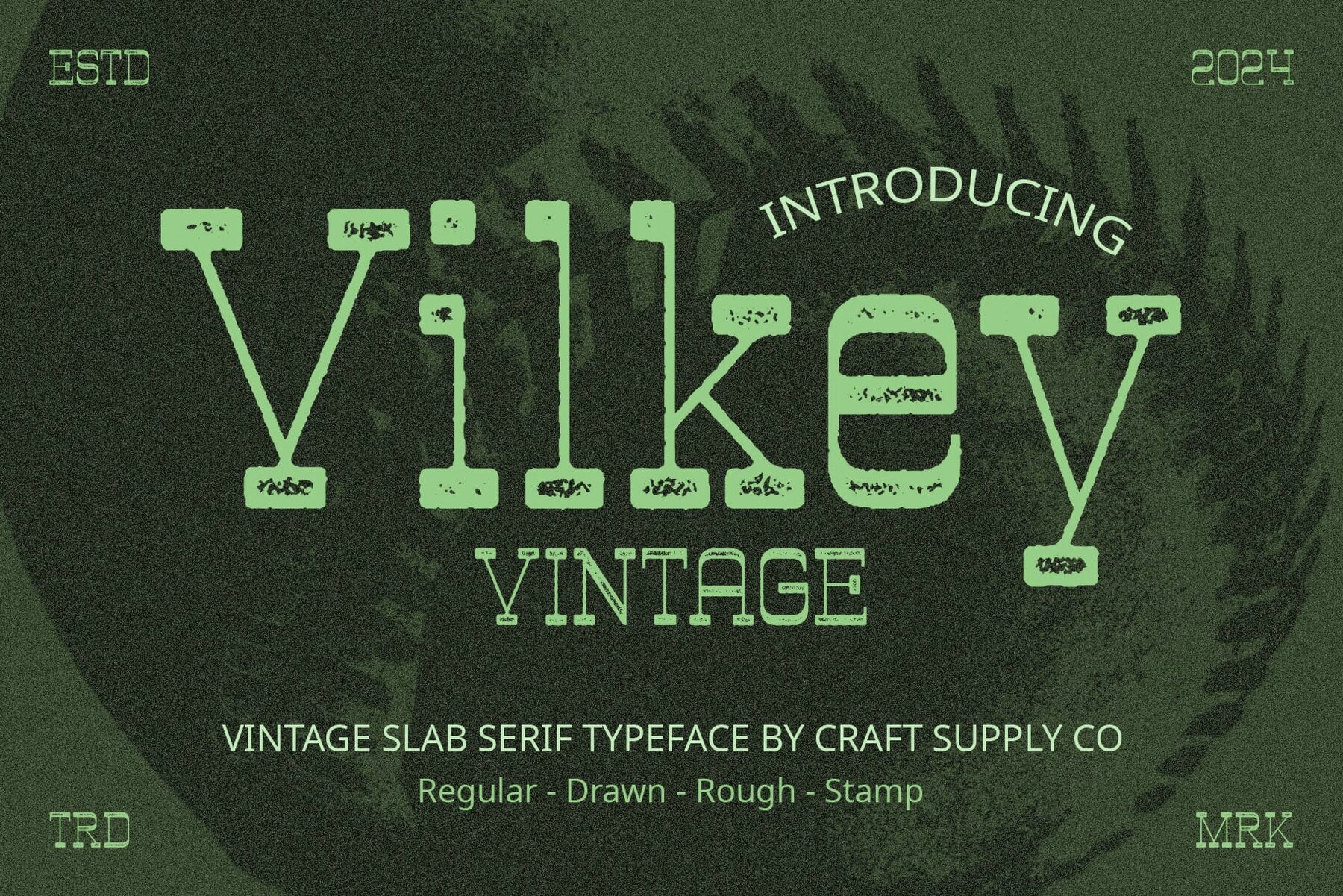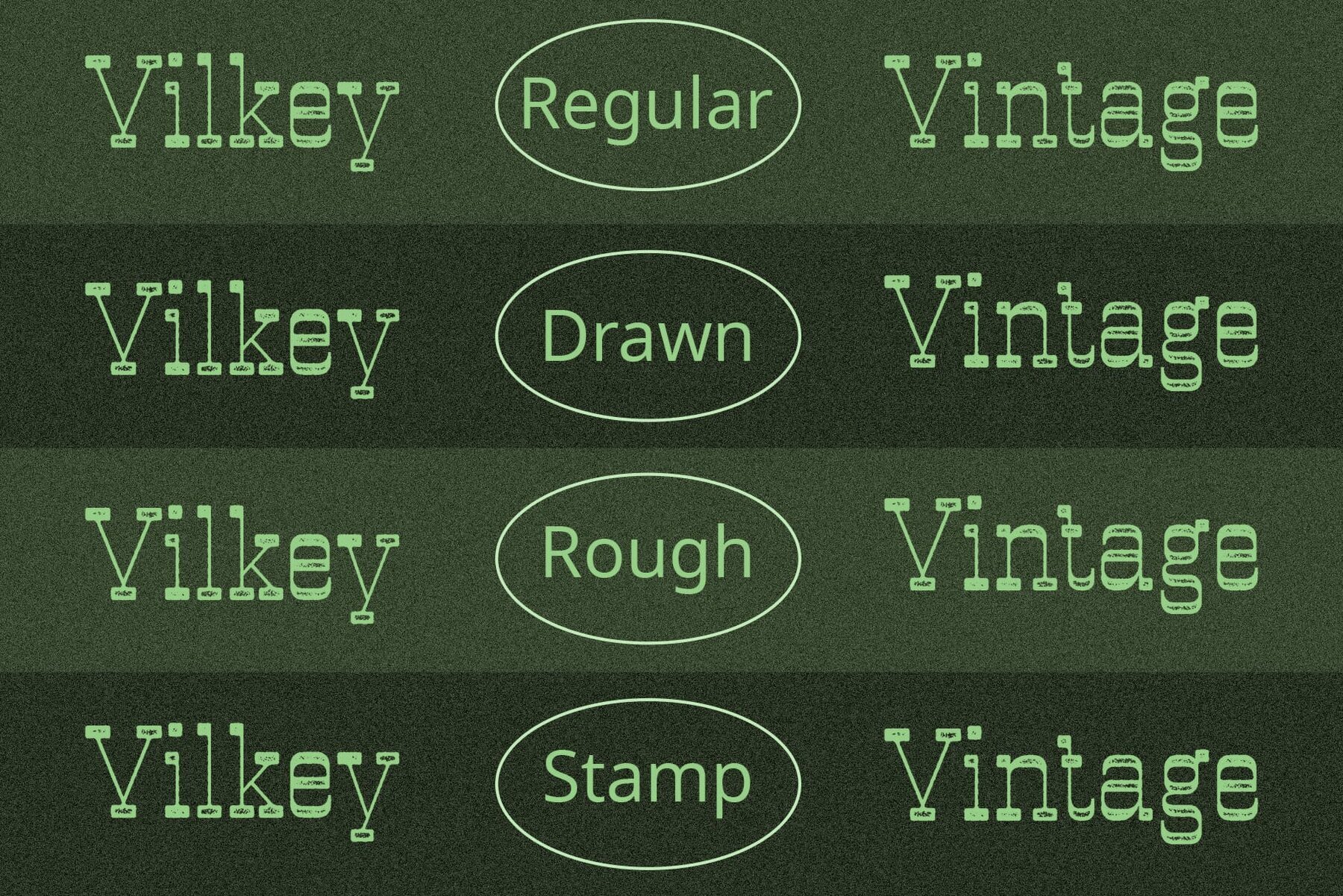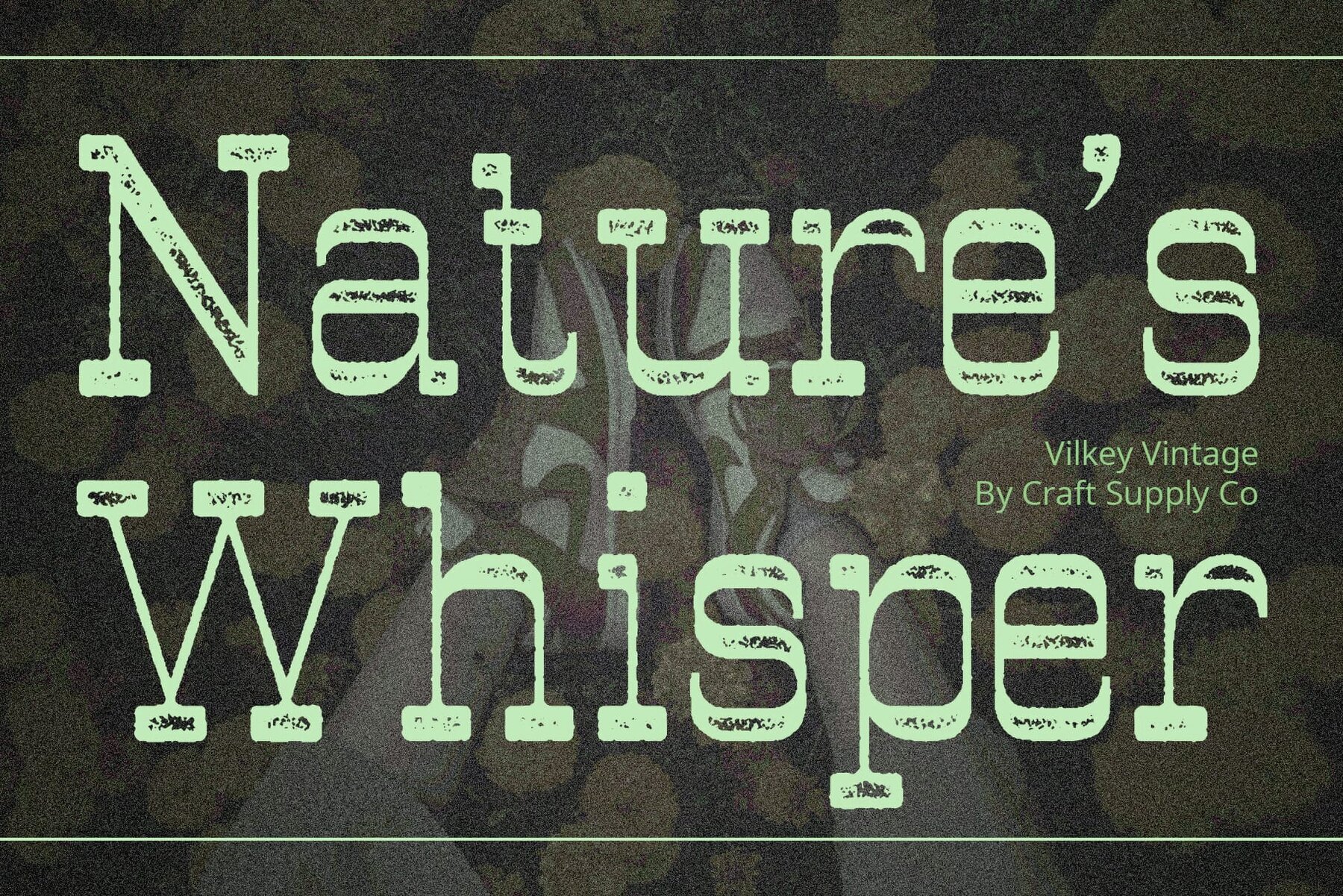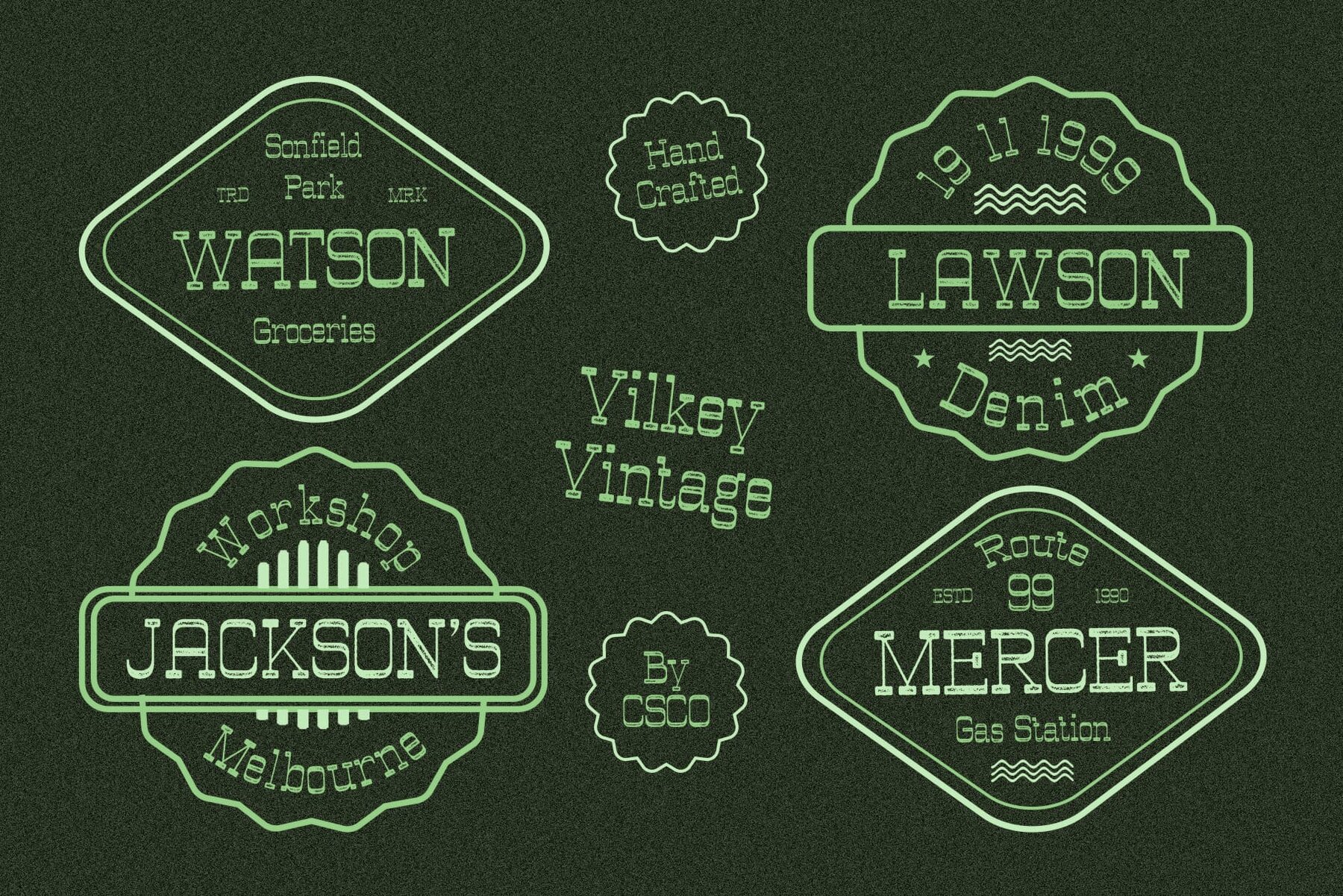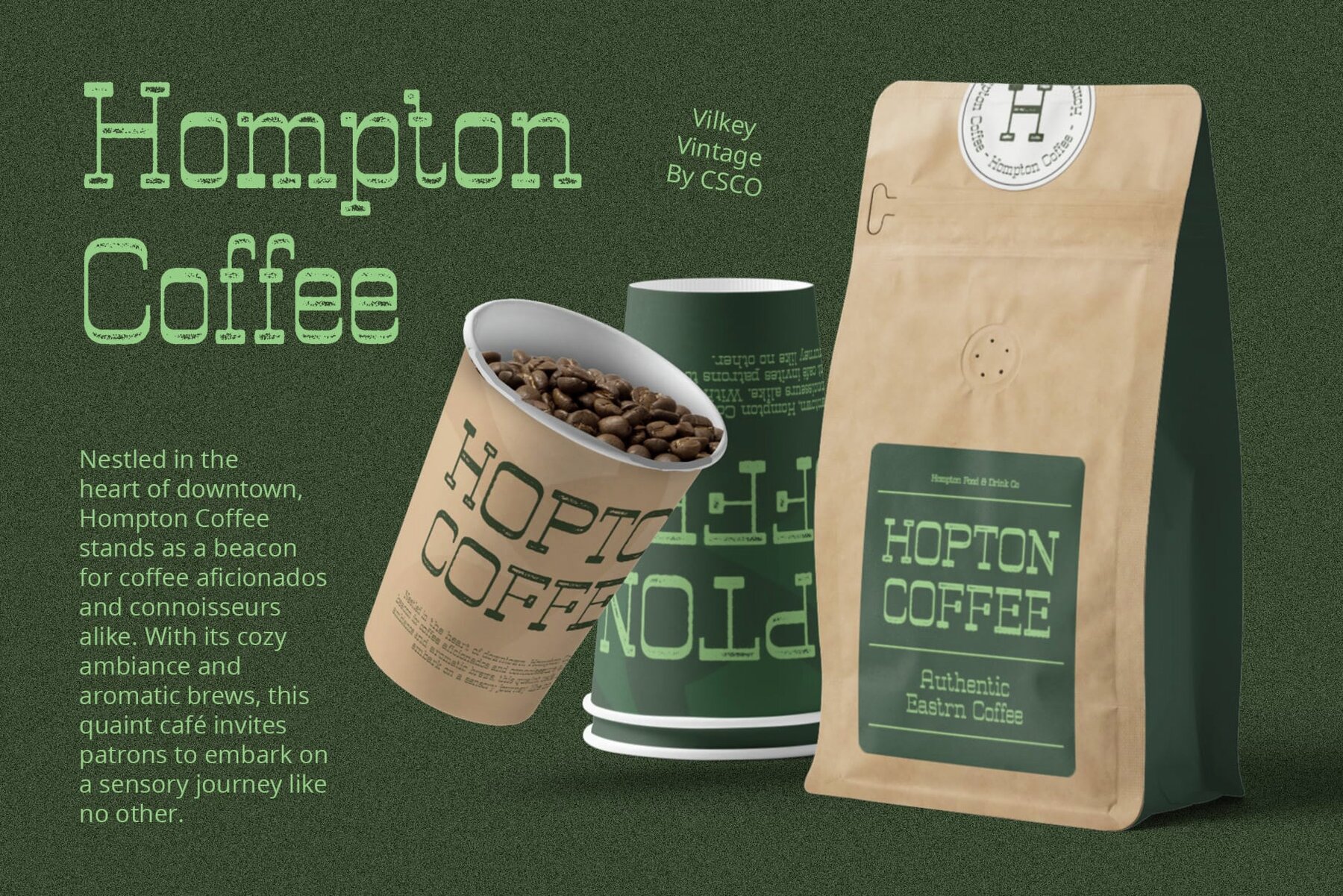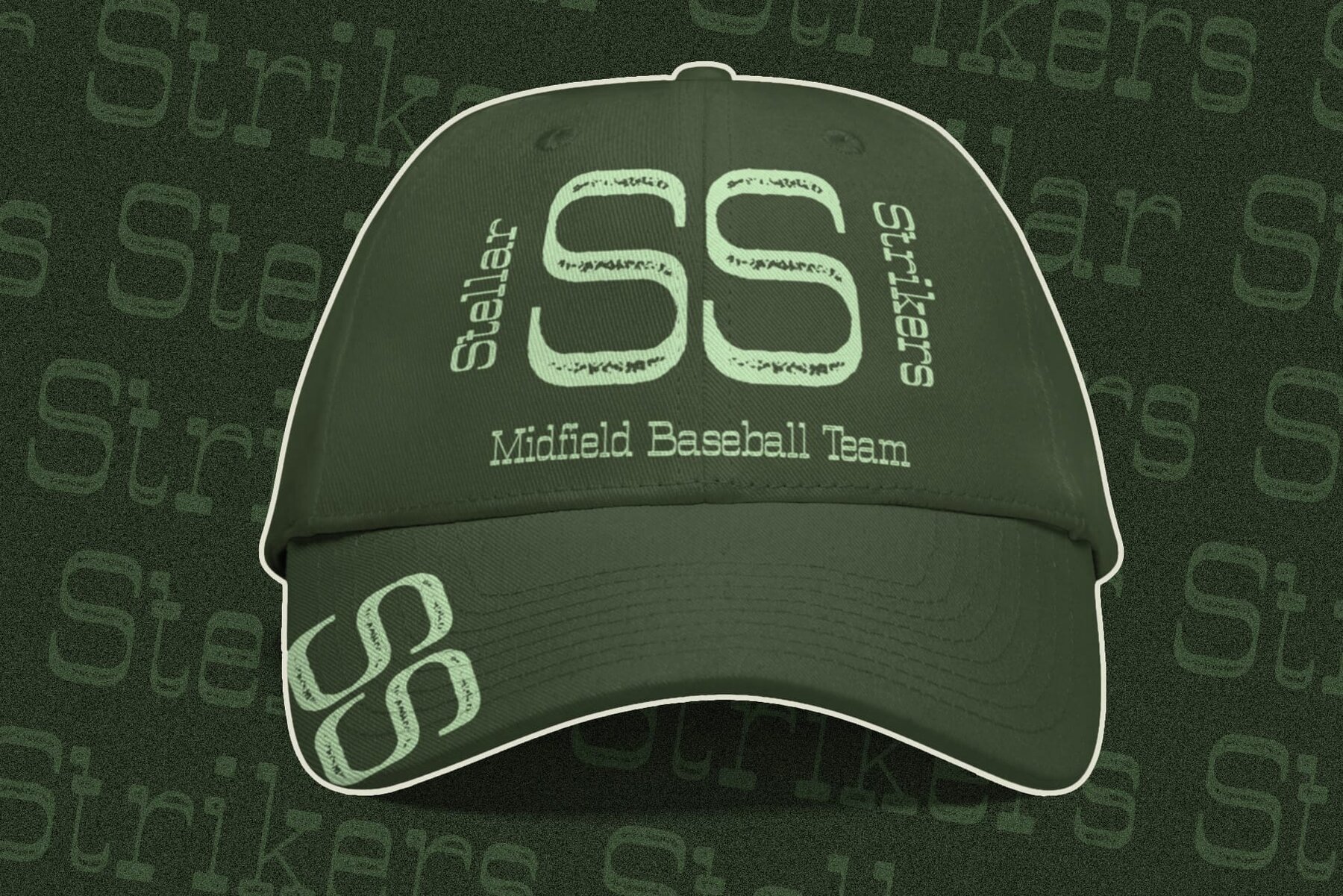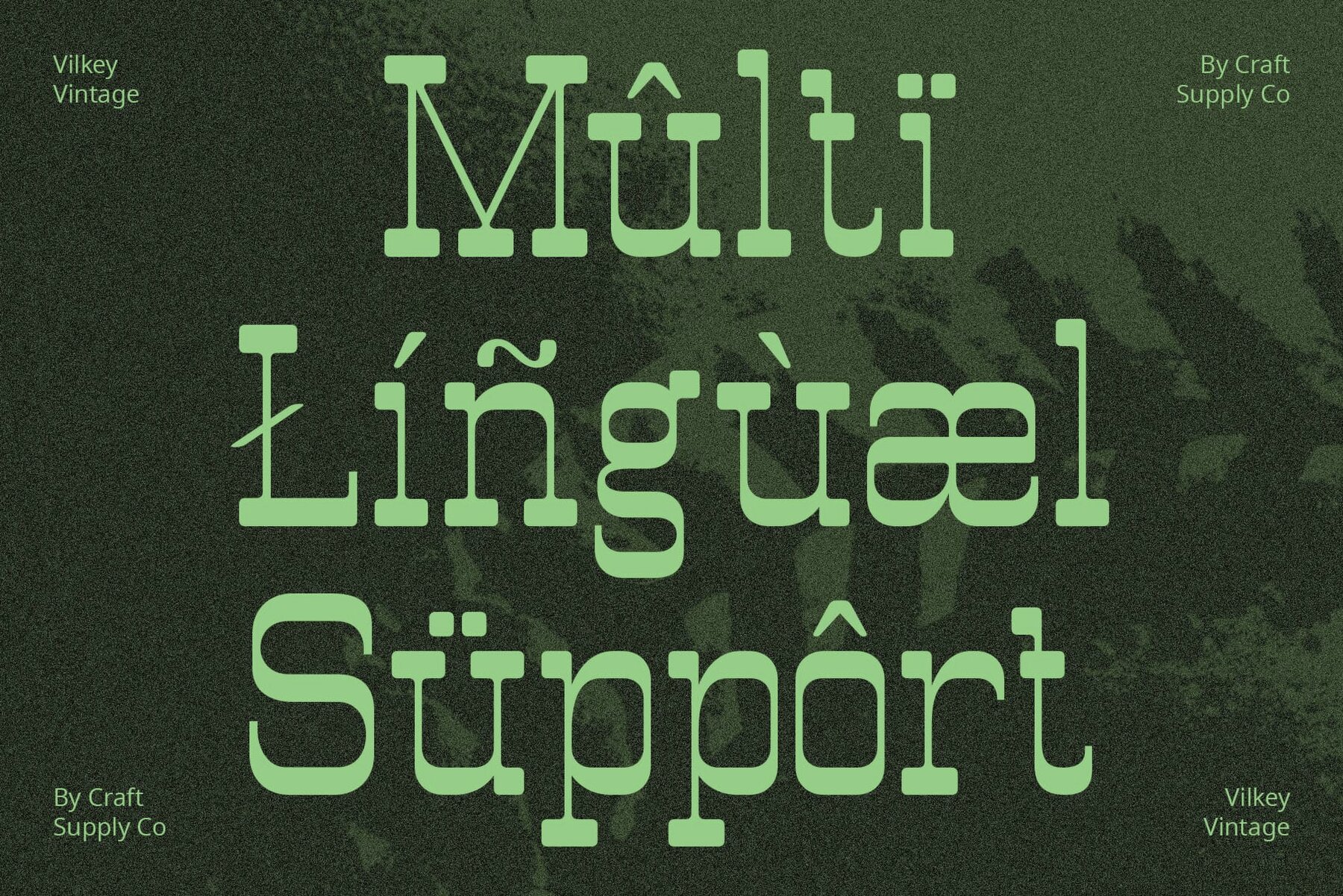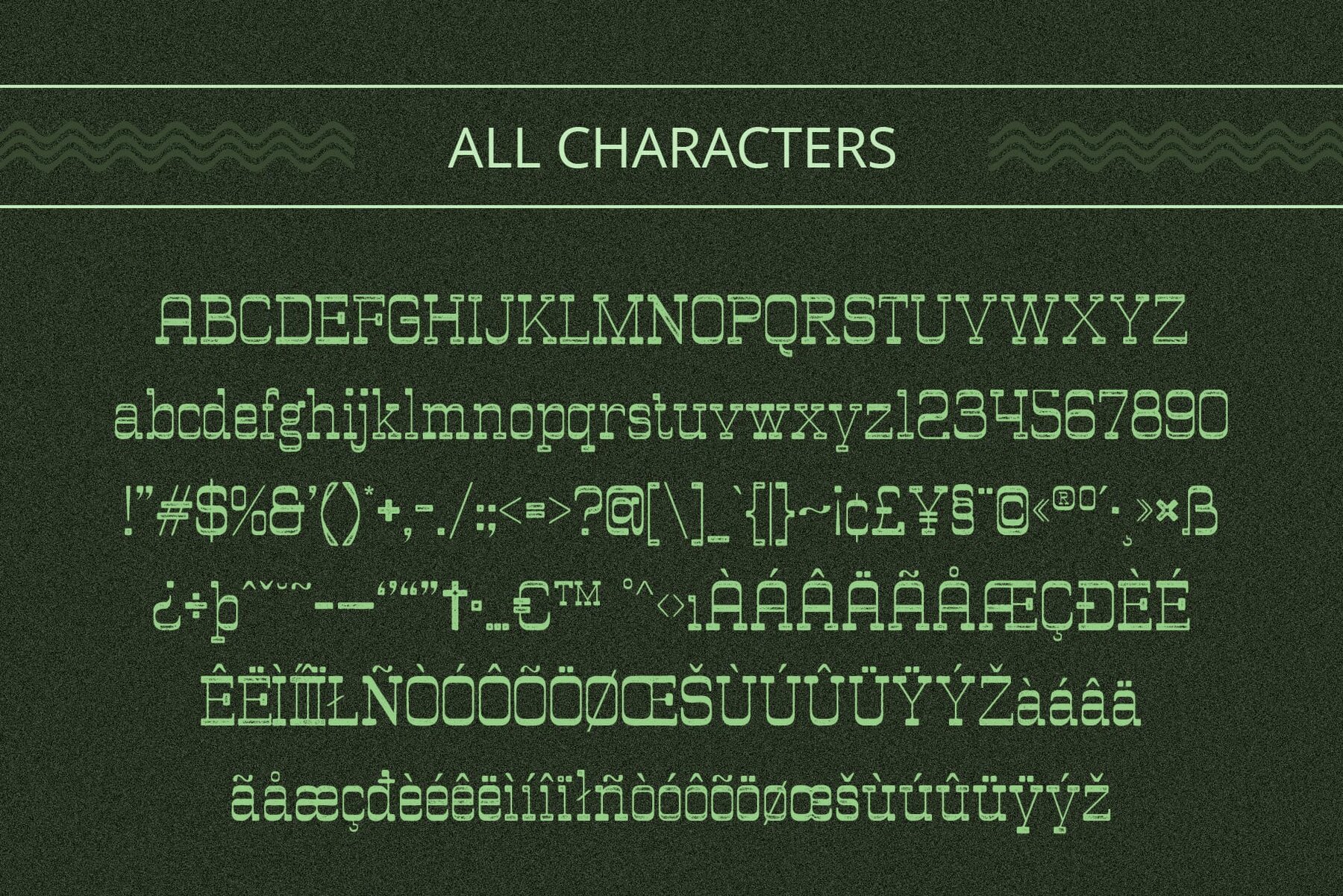
Vilkey Vintage Font
Bold Slab Serif Design Vilkey Vintage features a striking slab serif structure that commands attention. Its bold strokes and sturdy letterforms exude confidence, making it an ideal choice for impactful displays. With its reverse contrast style, this font introduces a unique twist to traditional typography. The thick vertical strokes and thin horizontals create a captivating visual rhythm, adding elegance to any design. Embracing a rough stamp drawn effect, this font channels the nostalgic charm of vintage signage. Each character bears subtle imperfections, adding character and authenticity to the overall aesthetic. Despite its retro-inspired design, this font remains versatile and relevant for modern applications. Whether used in branding, editorial layouts, or web design, its vintage allure adds a touch of nostalgia and sophistication. This font pays homage to the classic era of typography while offering a fresh perspective for contemporary projects. Its bold slab serif design, reverse contrast elegance, and rough stamp drawn effect combine to create a font that stands the test of time, adding a touch of vintage charm to any design endeavor. No specialized software is needed to utilize this typeface.Vilkey Vintage: A Retro Revival in Display Typography
Reverse Contrast Elegance
Rough Stamp Drawn Effect
Vintage Appeal for Modern Projects
Timeless Tribute